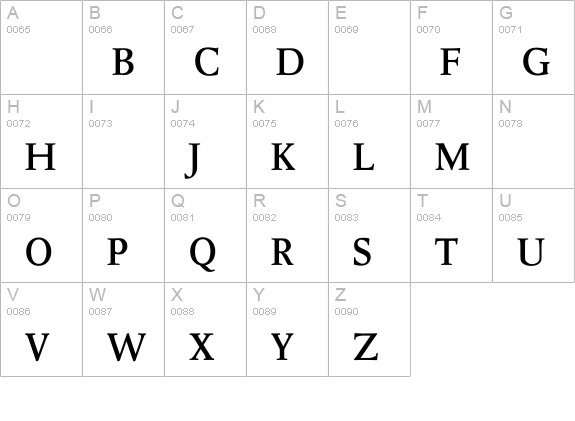
LeightonBold Font Details
LeightonBold is a captivating and versatile font that effortlessly combines elegance with a modern twist. This unique typeface is perfect for adding a touch of sophistication to any design project, whether it's a logo, branding materials, or a stunning website. With its bold and confident letterforms, LeightonBold commands attention and creates a lasting impression. Its clean lines and carefully crafted curves give it a timeless appeal that is both classic and contemporary. This font is wonderfully legible, making it a great choice for headlines, titles, and large blocks of text. One of the most remarkable aspects of LeightonBold is that it is available for free. Yes, you read that right – this incredible font can be freely downloaded at FontsMarket.com. This means that you can enhance your designs without worrying about breaking the bank. It's a fantastic opportunity to access a premium-quality font without any cost. LeightonBold offers a wide range of stylistic alternates, ligatures, and swashes, giving you the freedom to truly customize your designs and make them stand out. Whether you prefer a more traditional look or want to experiment with a contemporary aesthetic, this font has it all. So why wait? Take advantage of the opportunity to elevate your designs with LeightonBold. Download it for free at FontsMarket.com and unlock a world of possibilities. Let this font be the secret weapon in your design arsenal, creating captivating and memorable visuals that leave a lasting impression.